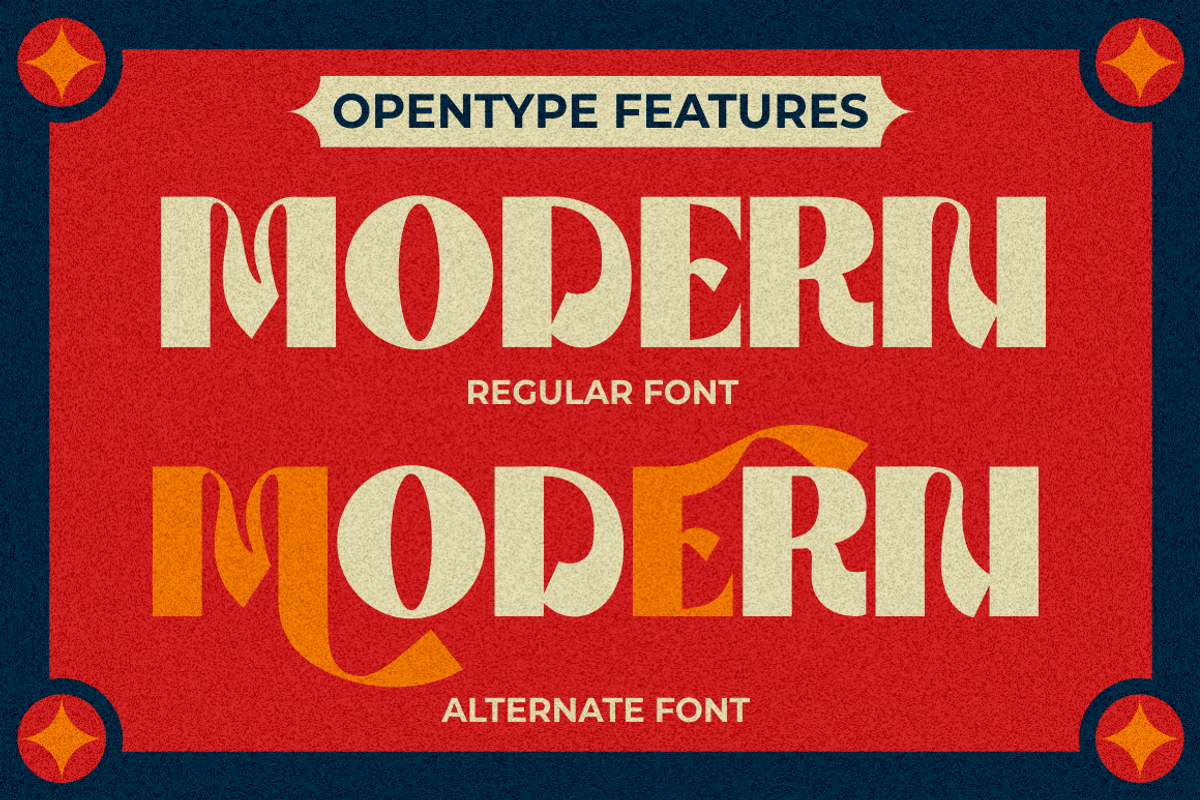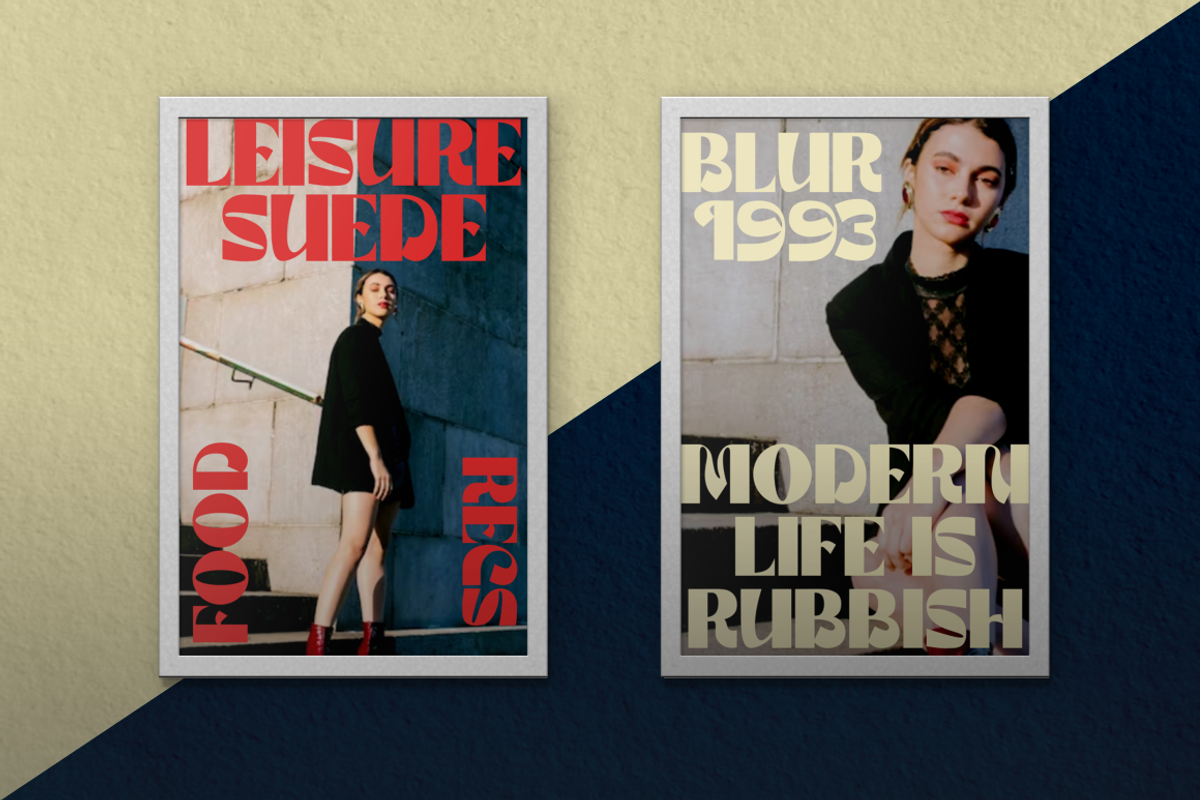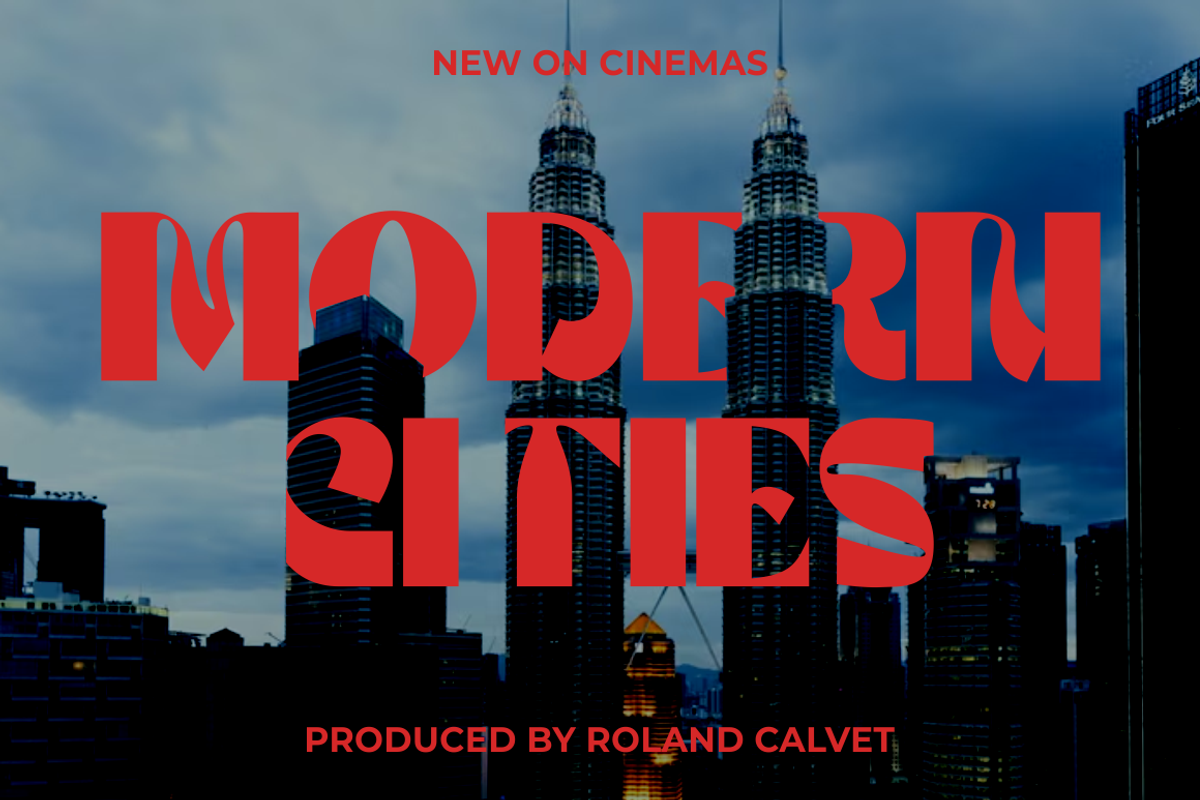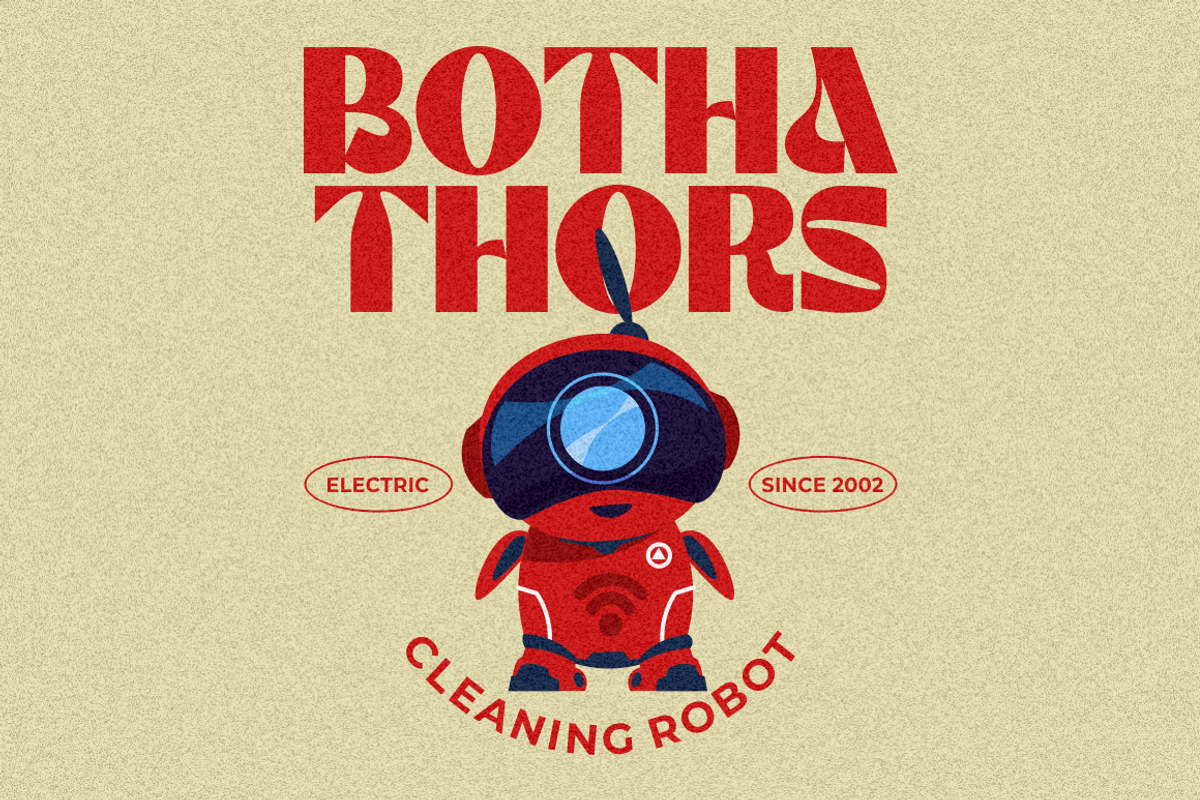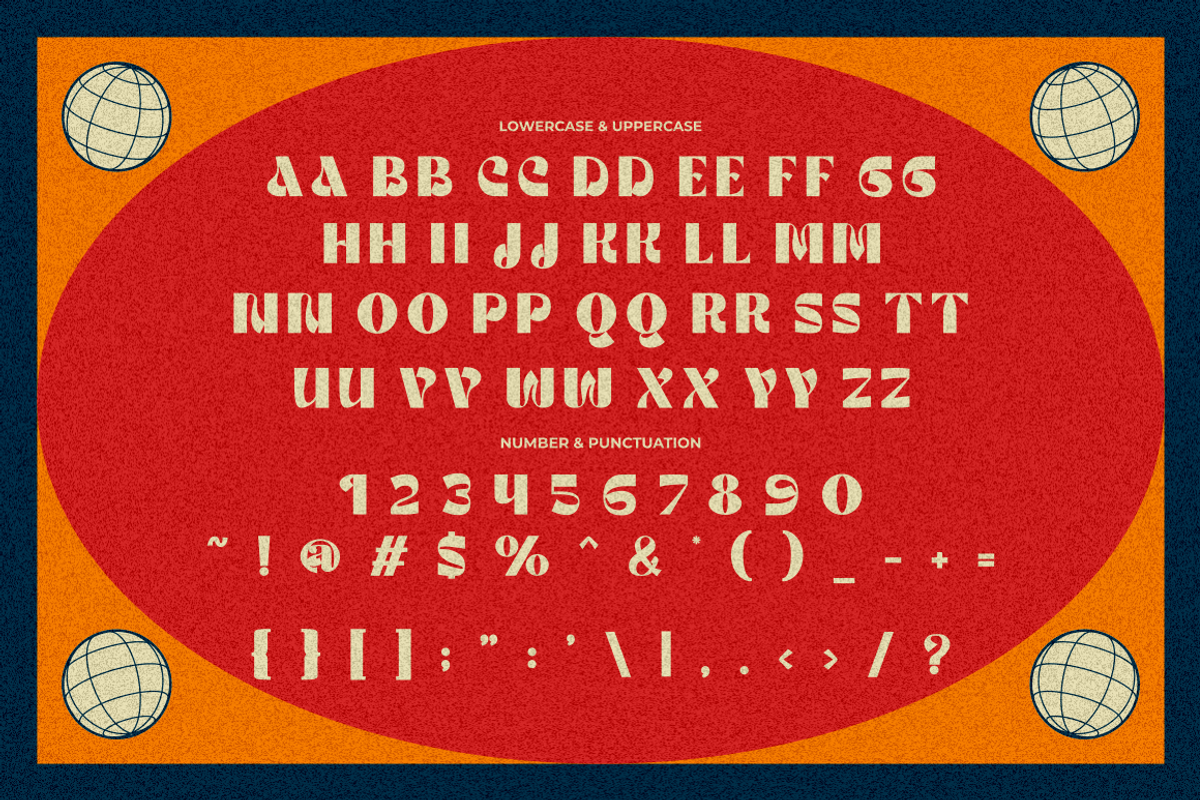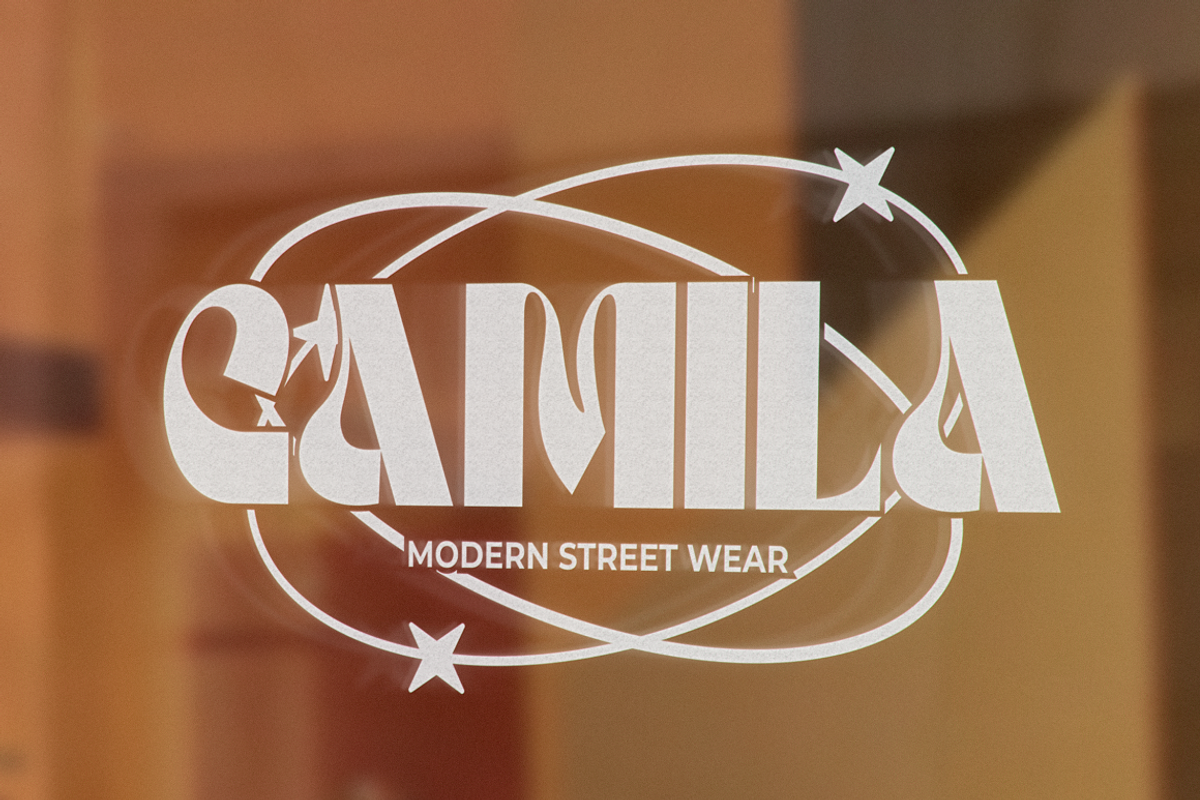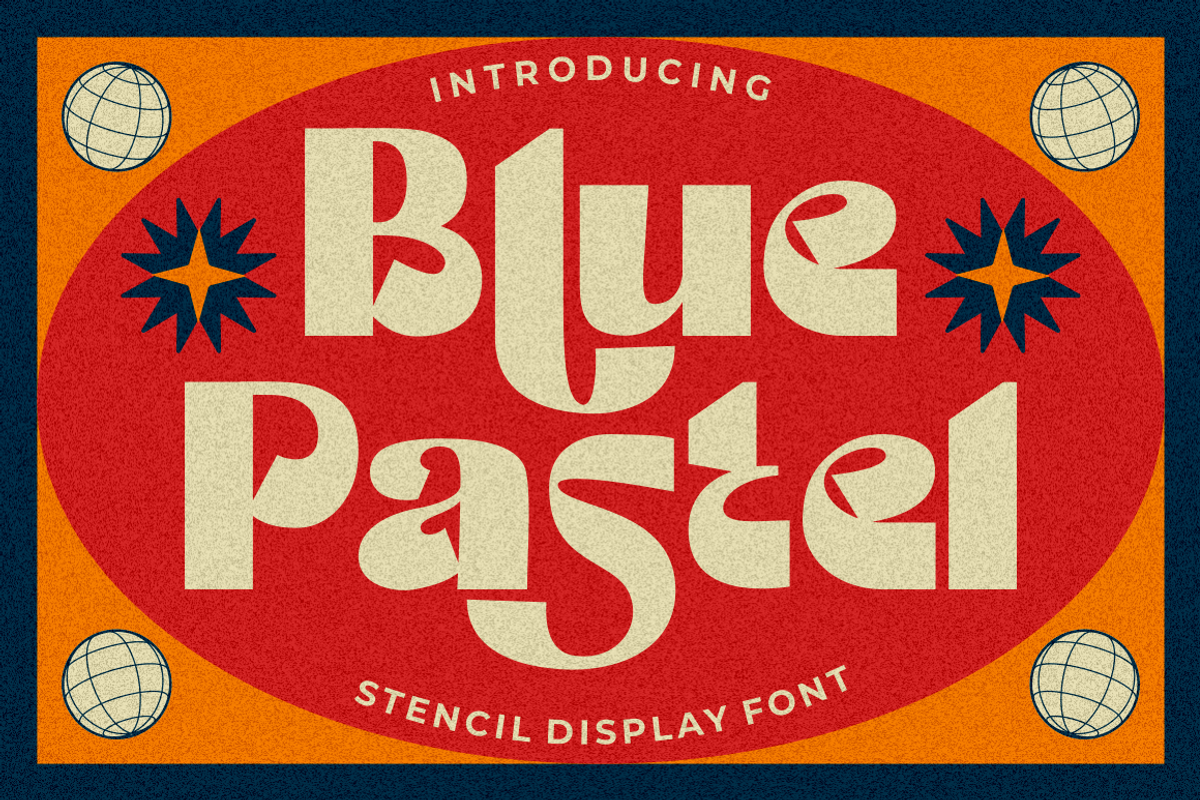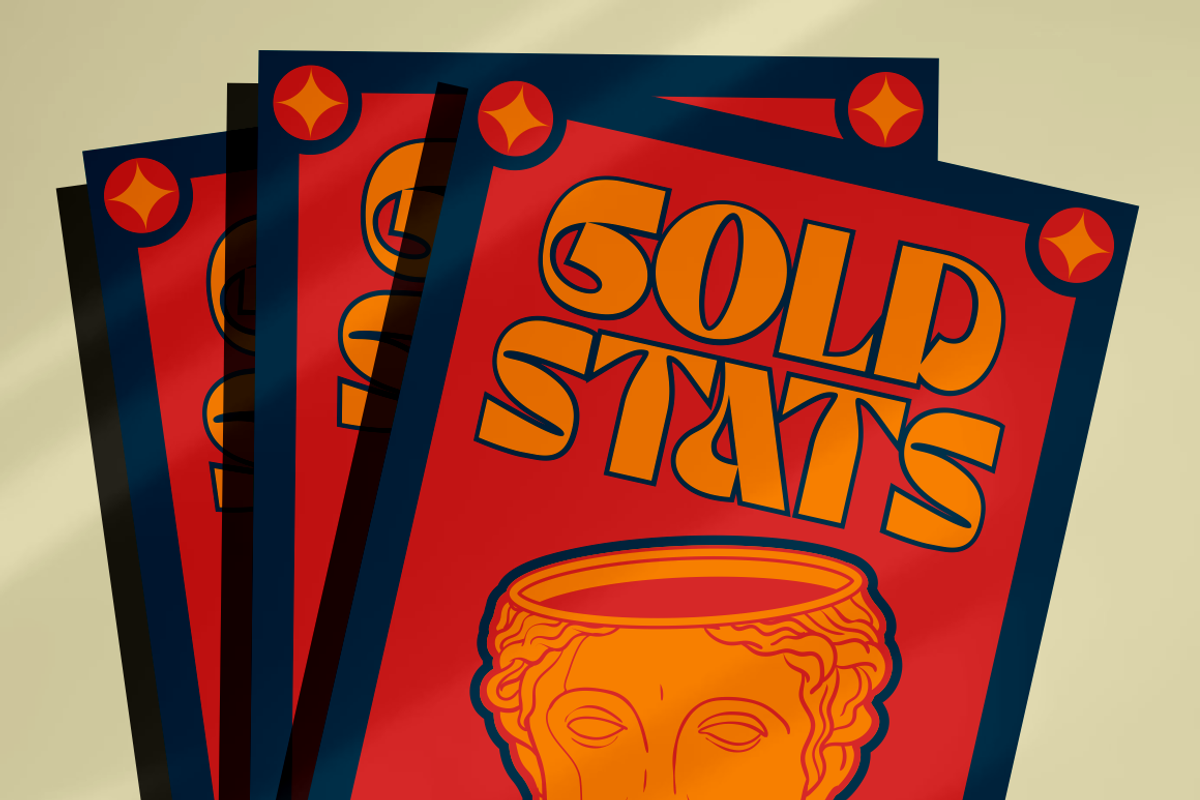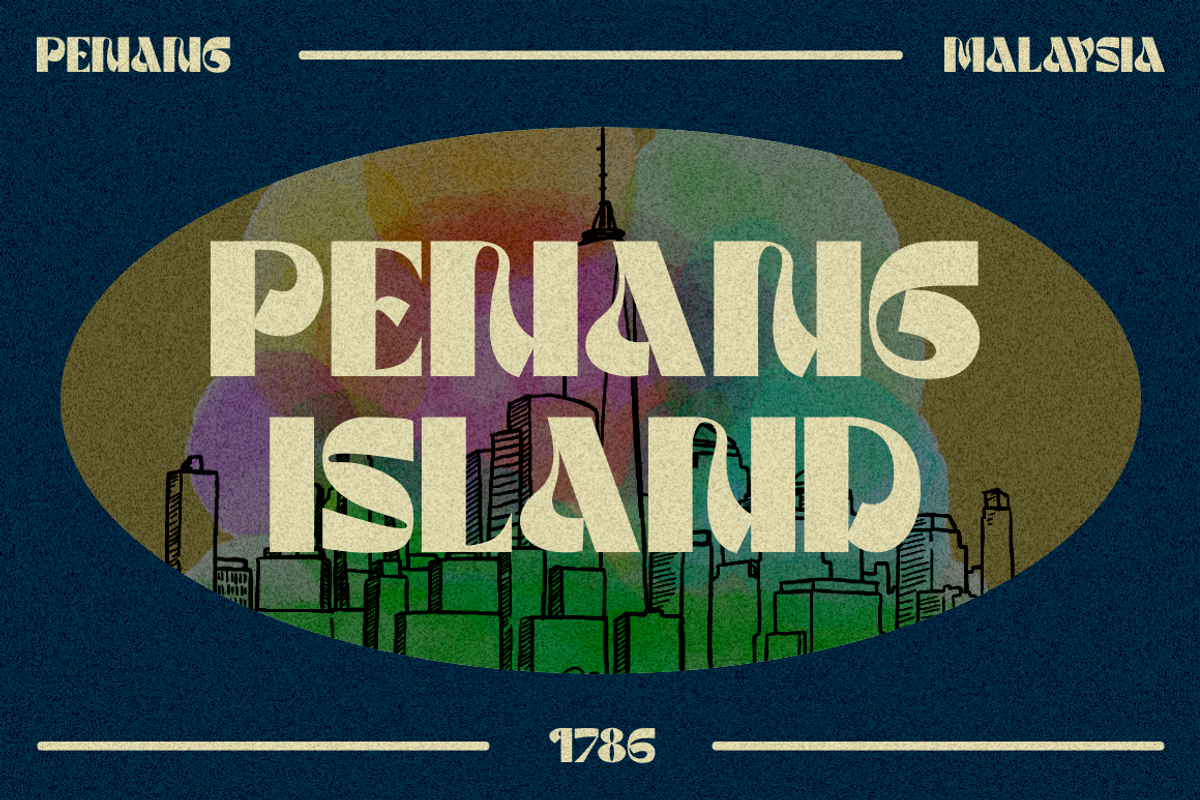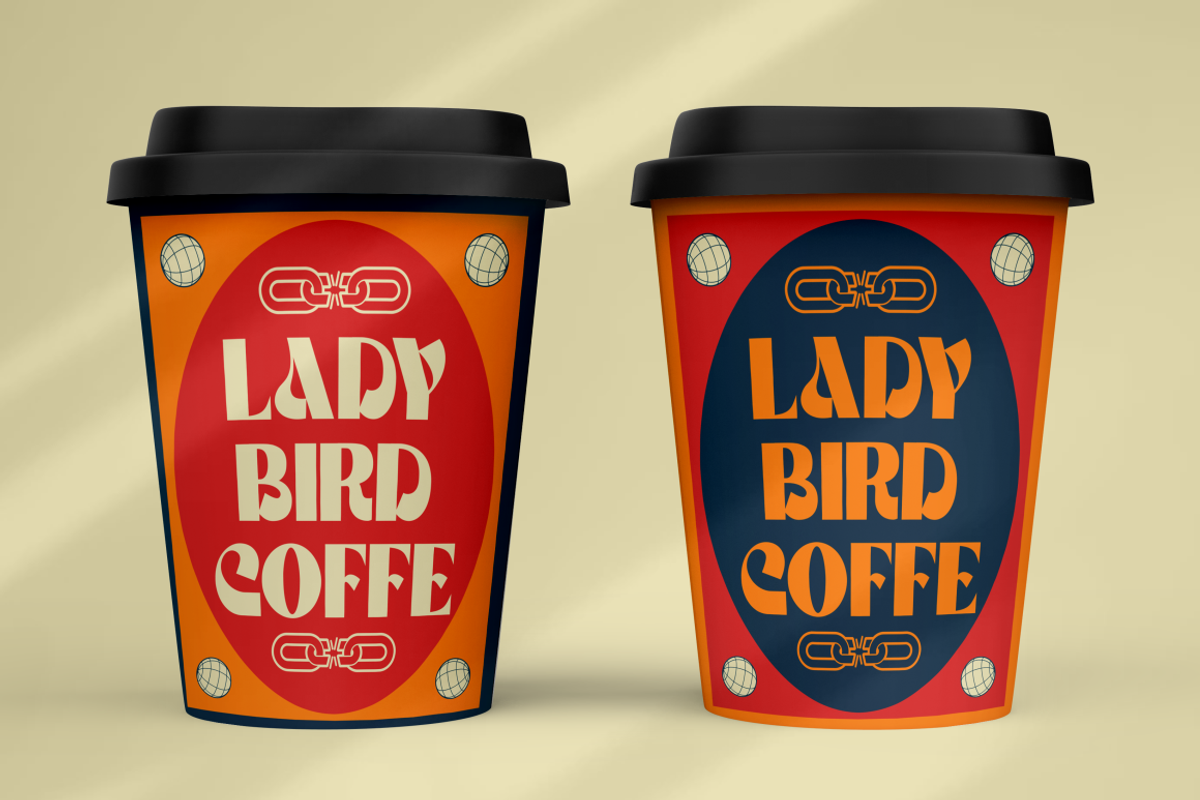
Blue Pastel - Display Font
Blue Pastel - Display Font is a bold and retro-inspired font that exudes uniqueness and groovy charm. Its display style makes it a perfect choice for various design applications. Whether you need a font for logos, branding, headlines, titles, posters, or a modern twist on retro designs, Blue Pastel is the ideal font to add a touch of nostalgia and contemporary flair to your projects.
The bold display style of Blue Pastel immediately captures attention and adds a strong visual impact to your designs. Its retro-inspired elements evoke a sense of nostalgia, taking your audience on a trip down memory lane. The font's unique and groovy appearance sets it apart from traditional serif fonts, making it a great choice for those seeking a distinctive typographic solution.
Whether you're creating a vintage-inspired logo, designing a groovy poster, or adding a retro twist to modern branding, Blue Pastel - Display Serif Font offers the versatility and character needed to elevate your designs to new heights.